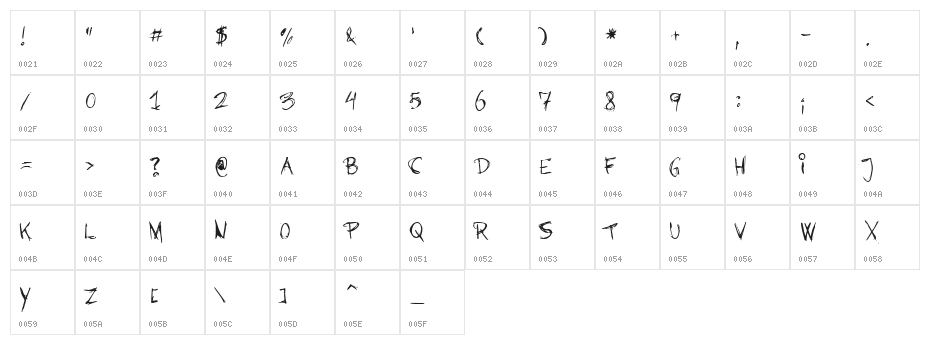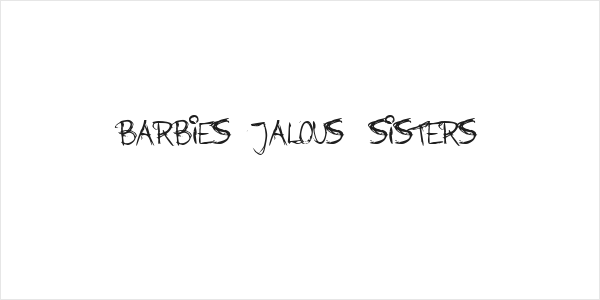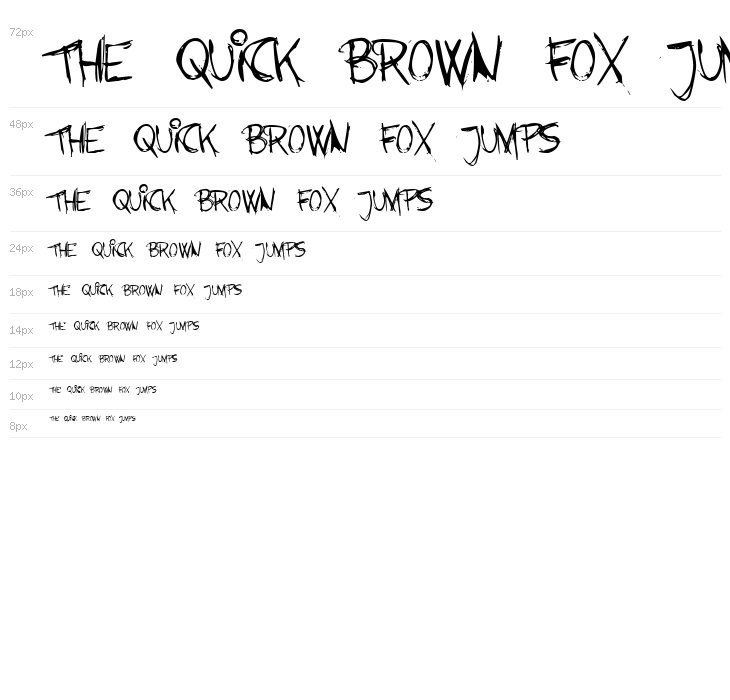
Barbies Jalous Sisters Font
Barbies Jalous Sisters Description
This font features a highly decorative and edgy style, characterized by its jagged and irregular strokes. The letters appear as if they have been scratched or painted with a rough brush, giving it a rebellious and grunge aesthetic. The uppercase and lowercase letters maintain this distressed look, with varying stroke thickness that adds to its chaotic charm. The numerals and special characters follow the same design, ensuring consistency across all glyphs. This font is perfect for projects that require a bold and unconventional appearance, making it ideal for artistic and alternative themes.
| Overall Style | Grunge, Edgy, Artistic |
| Proposed Projects | Album covers, poster designs, streetwear branding, and alternative event flyers. |